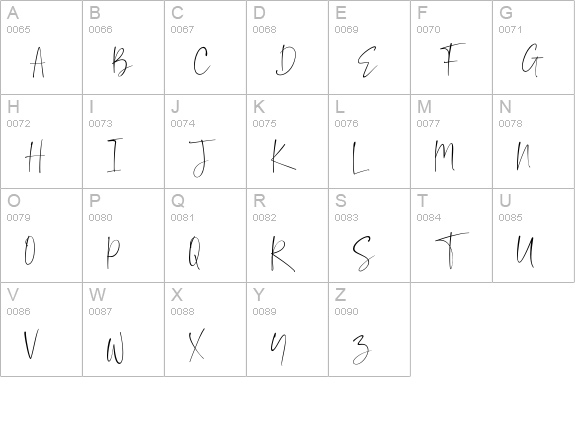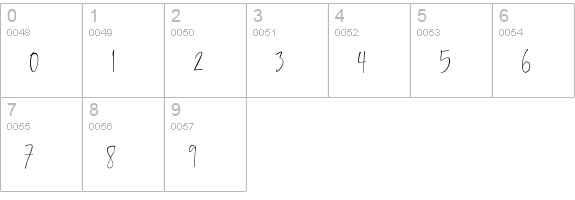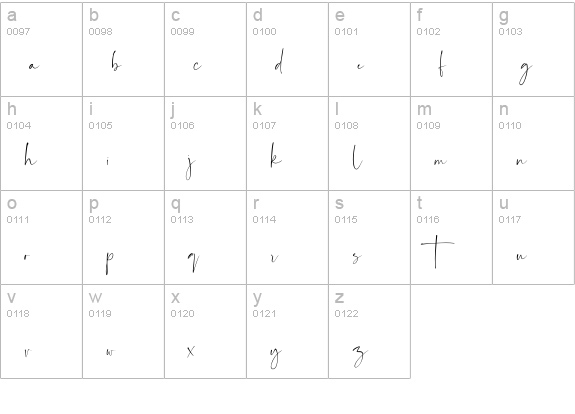
Balnes Font Details
Balnes is a free for personal use font in the Script > Handwritten category, designed by Ef Studio. It has been downloaded 46 times and is available for Windows, Mac and Linux.
Balnes font is a modern and stylish typeface that exudes elegance and sophistication. With its sleek lines and sharp angles, this font is perfect for adding a touch of class to any design project. Whether you're working on a logo, branding materials, or a website, Balnes font will make your text stand out and grab attention.